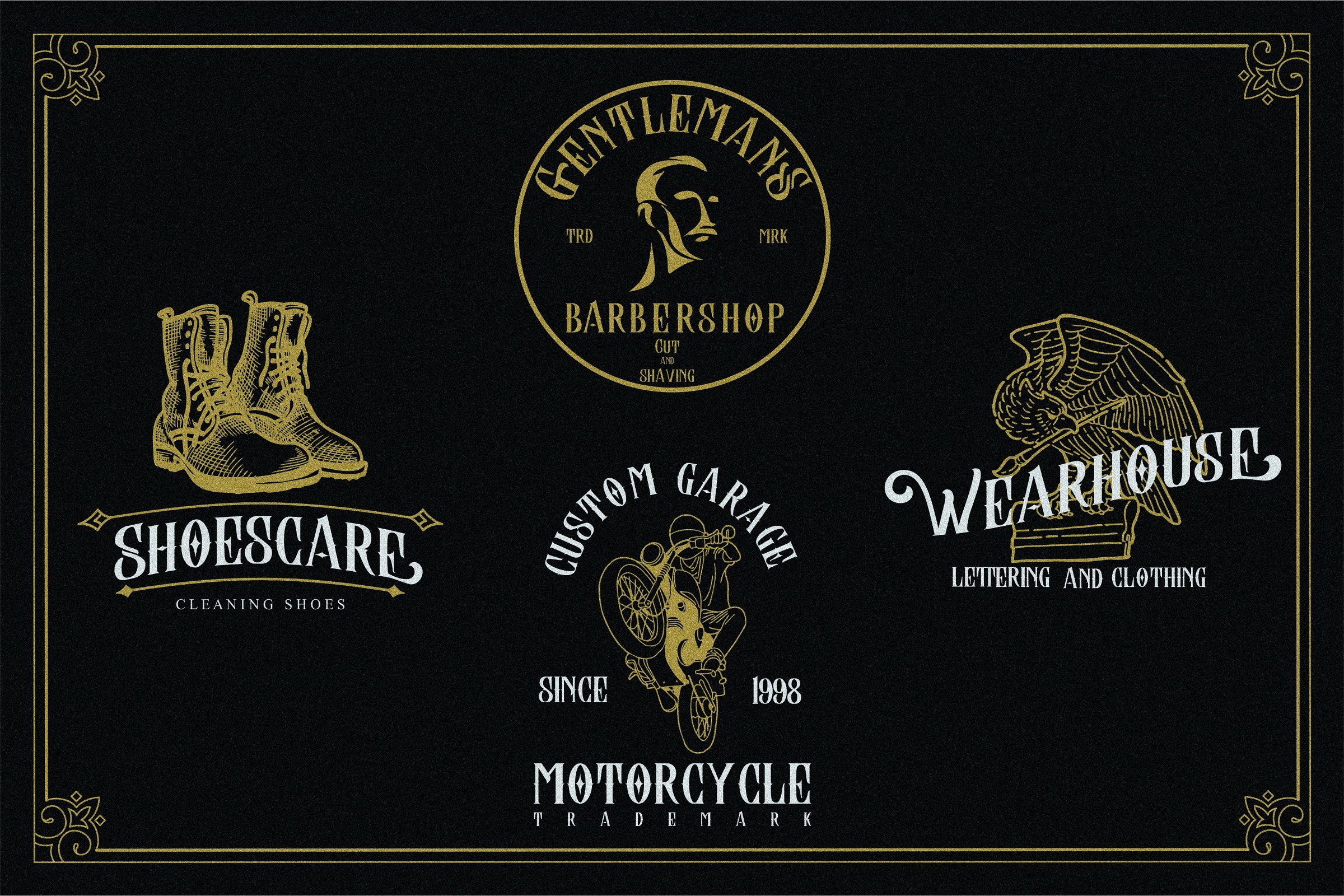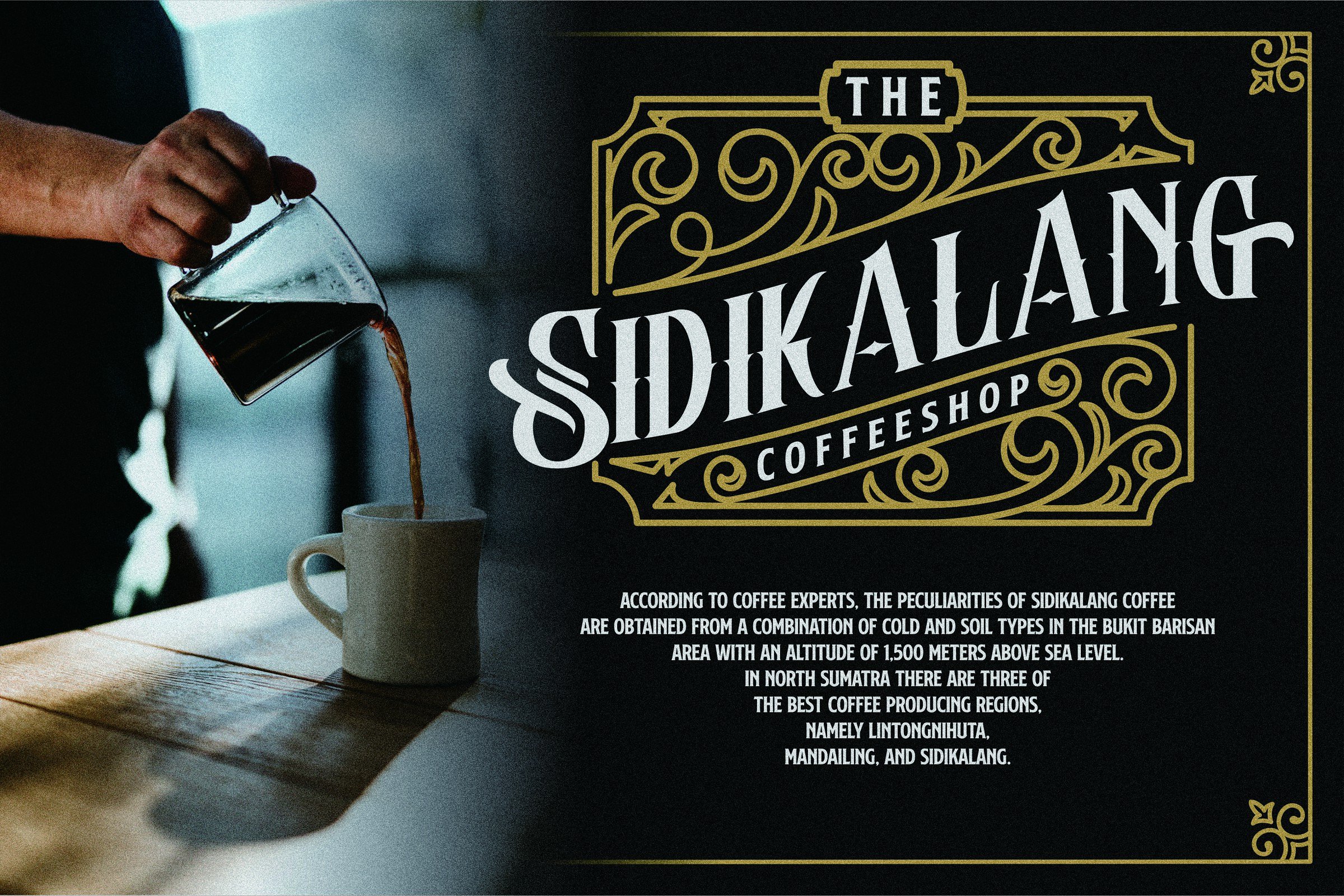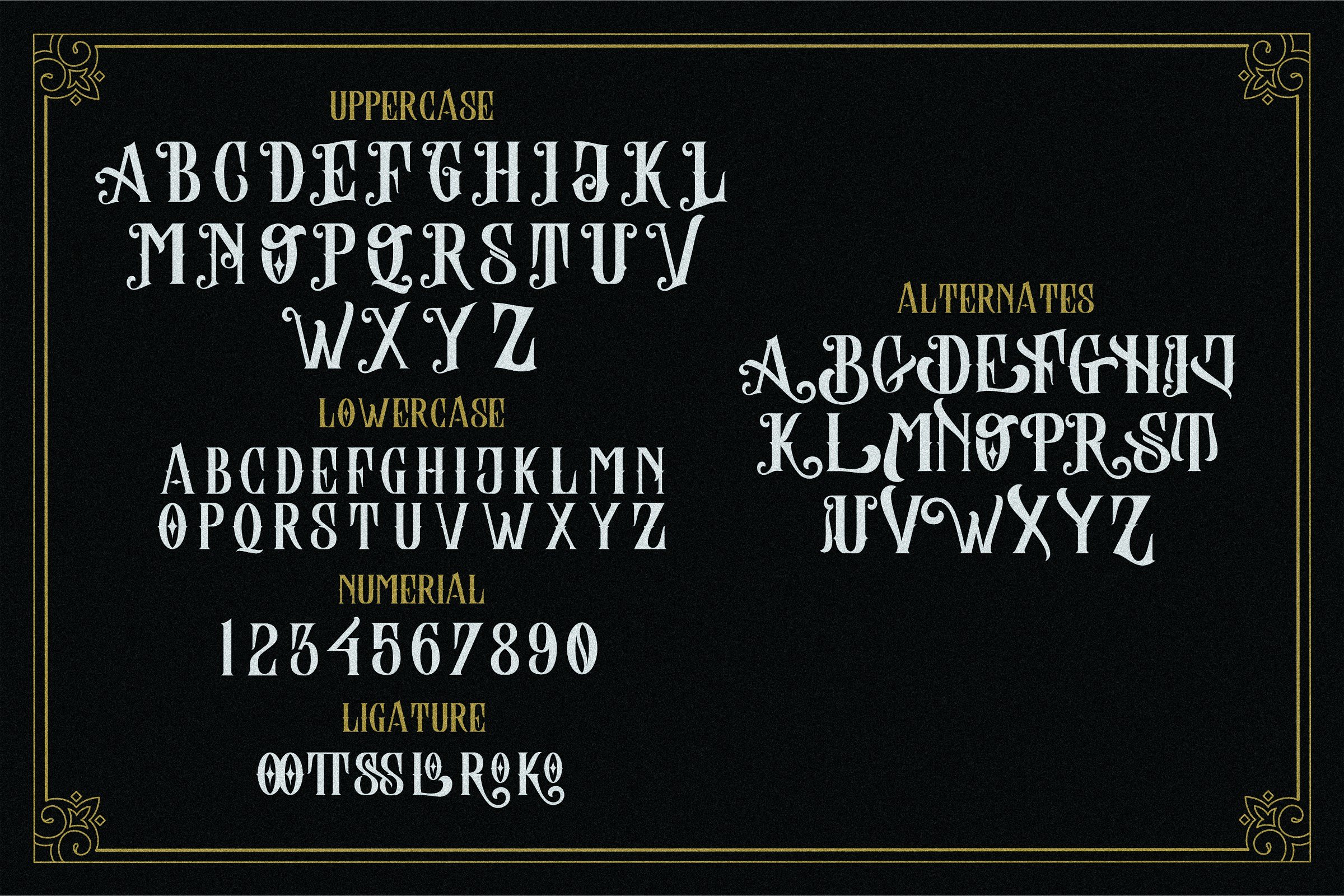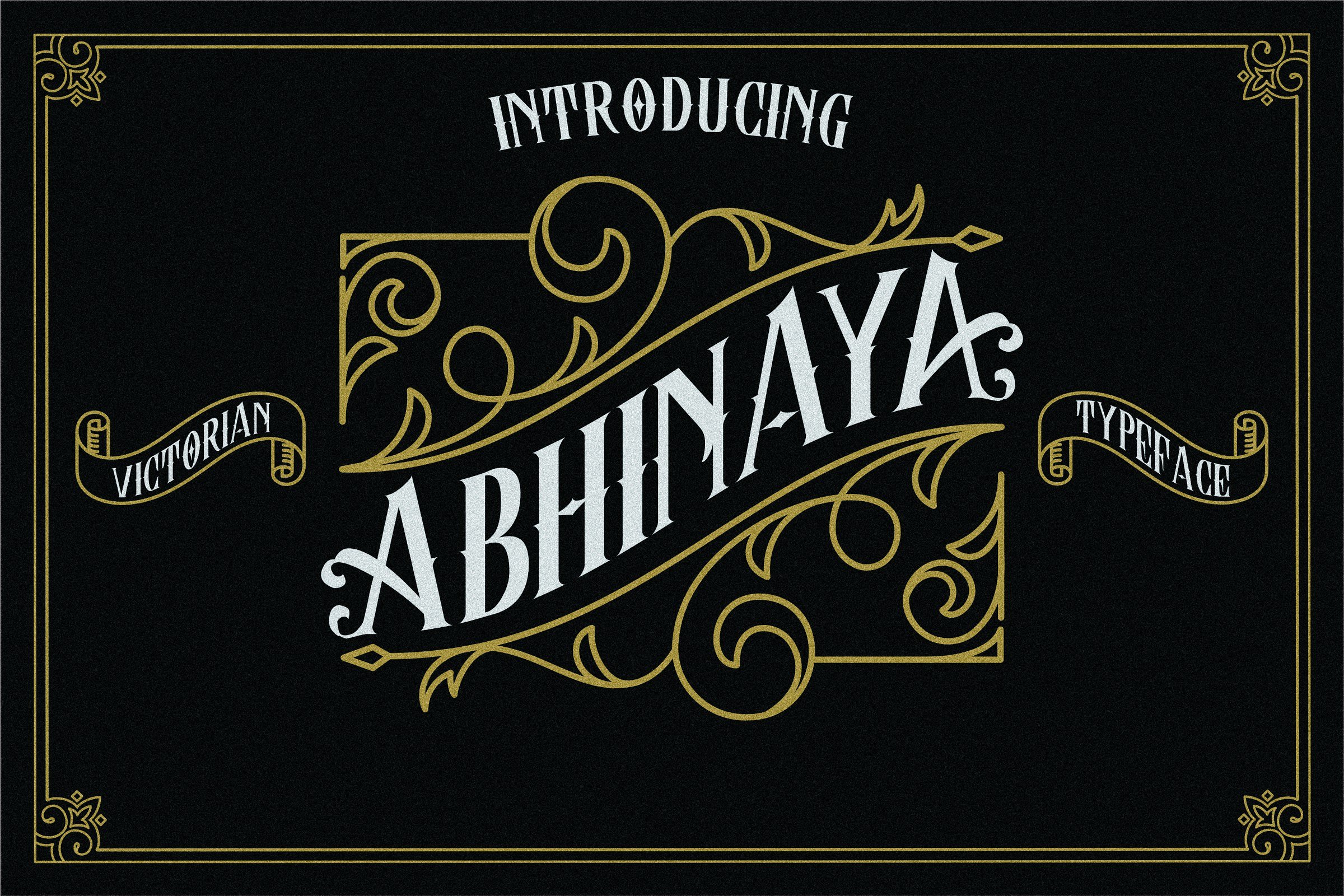
Abhinaya Typeface
Abhinaya Typeface – Free Demo
This is a classic art-deco-ish serif that are inspired by the old typography/letterings used in packaging labels and advertisements. If you’re a fan of classic and art-deco ish typography, make sure you add this font to your design toolbox. Introducing Abhinaya Font. It is design and shared by Twicolabs Fontdation. Abhinaya Typeface is a font display is made by hand, inspired by classic posters.comes with uppercase, lowercase, numerals, punctuations and so many variations on each characters include opentype alternates, common ligatures and also additional swash to let you customise your designs. Perfect to use for Logotype, Letterhead, Poster, Apparel Design, Label and etc.